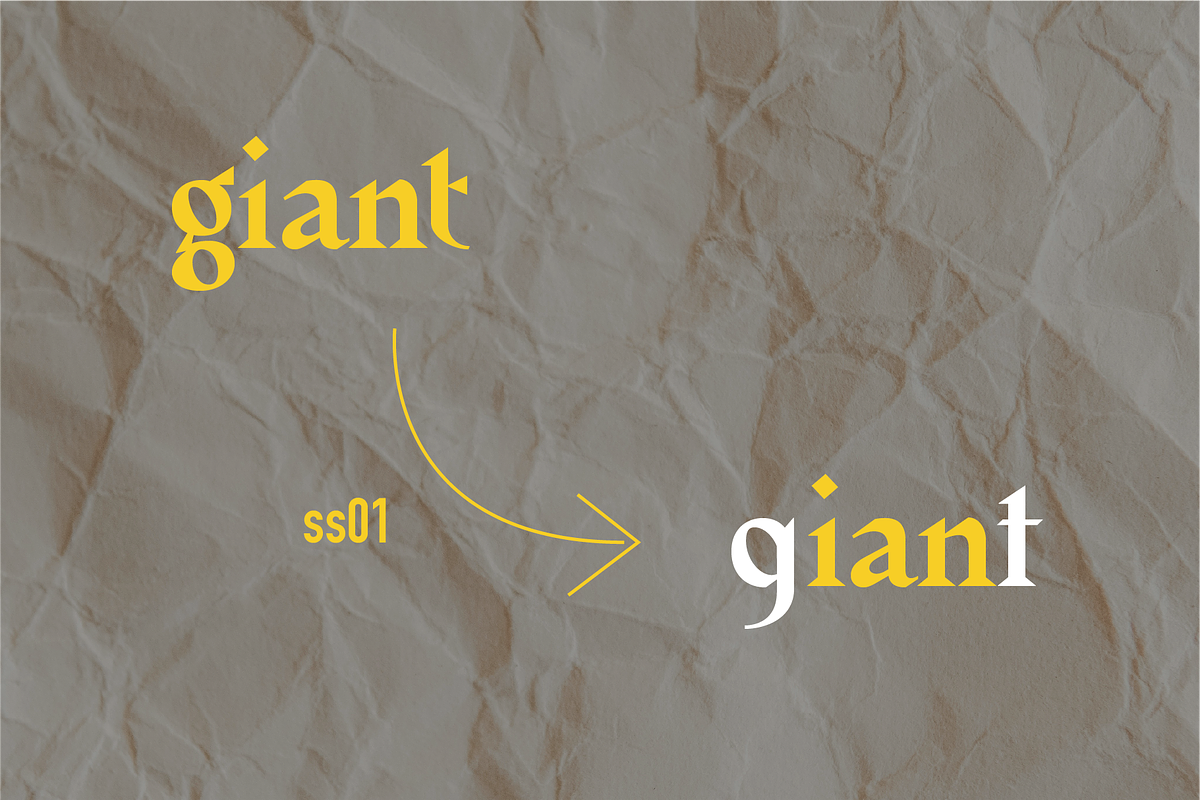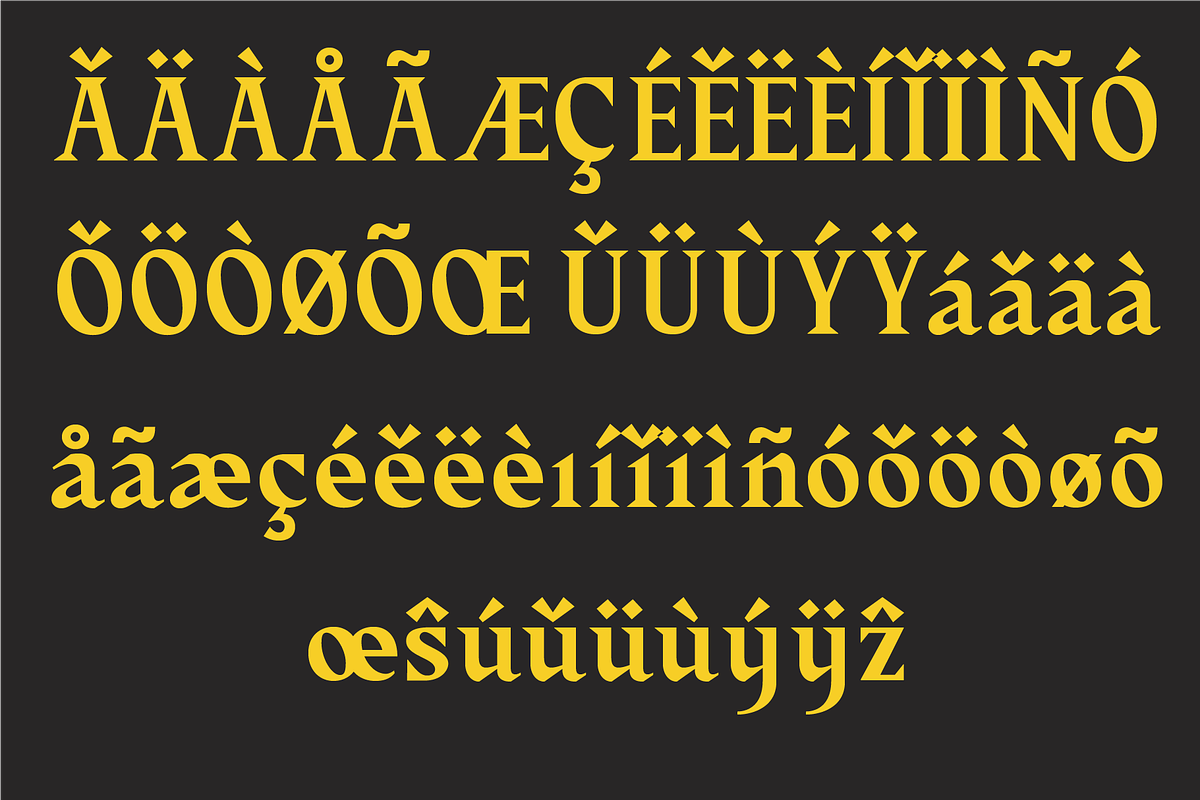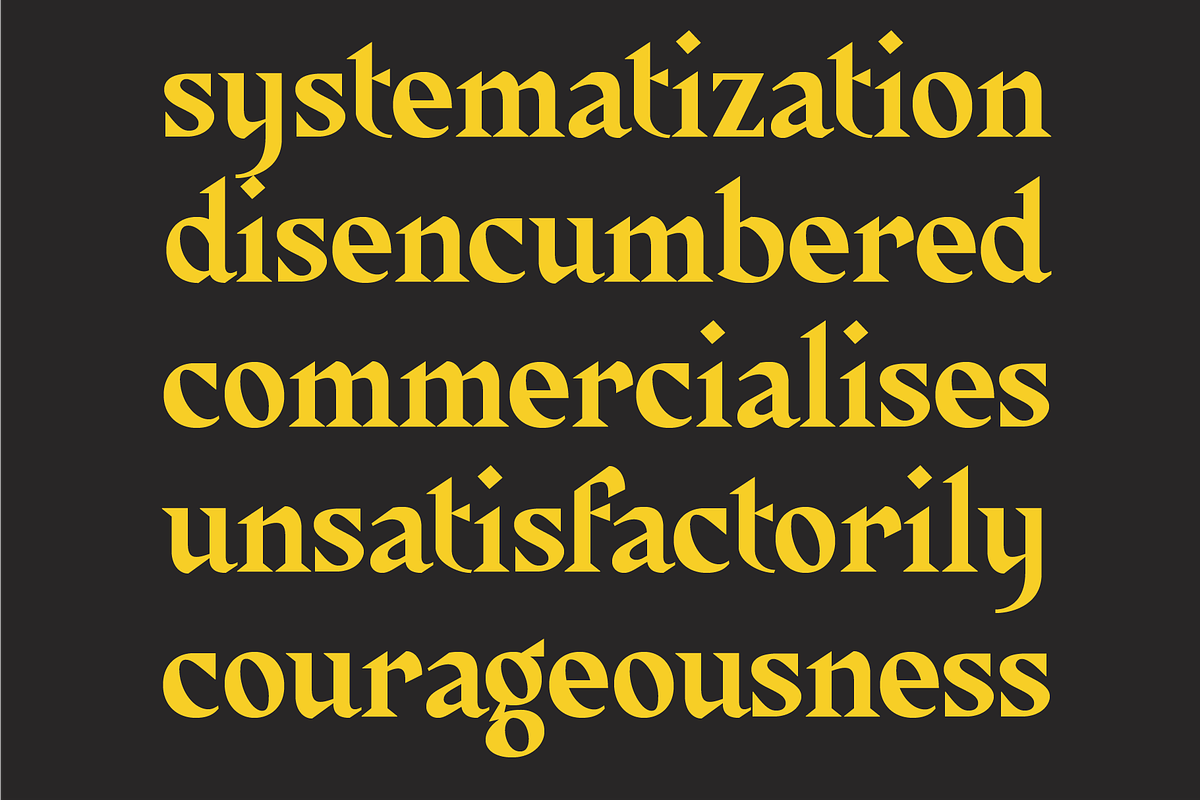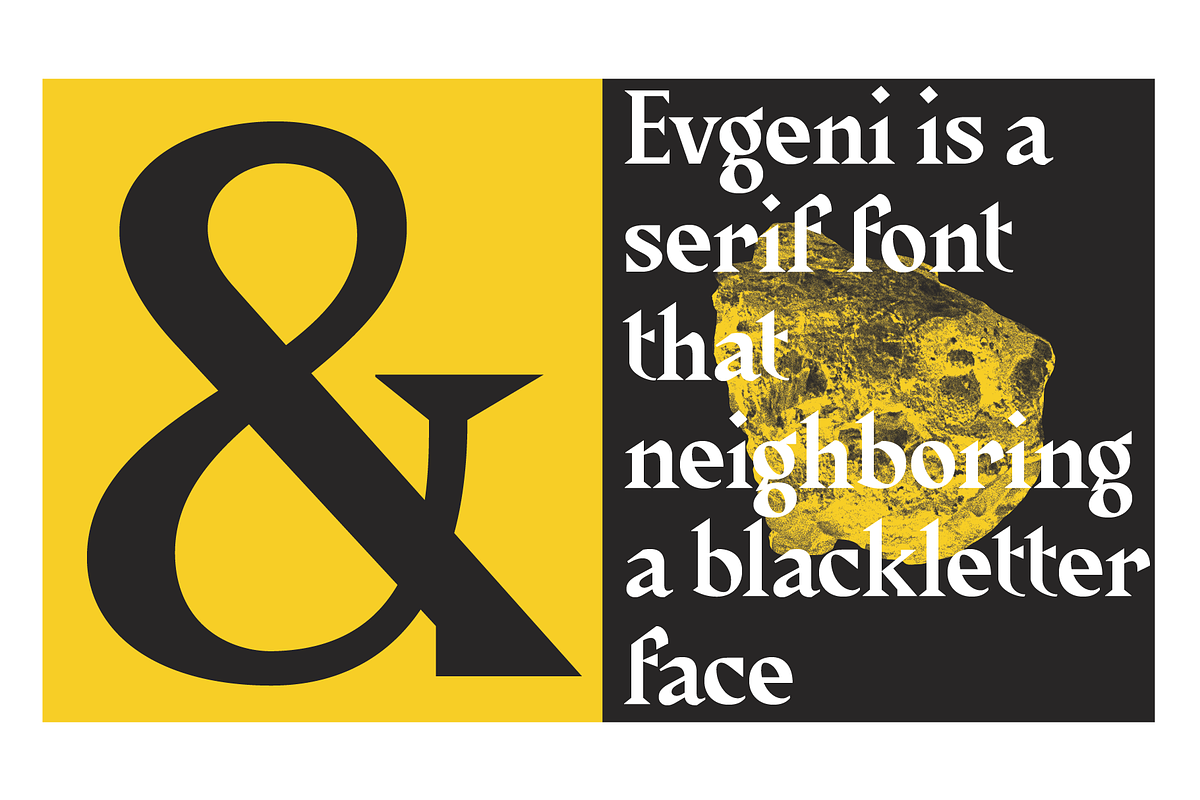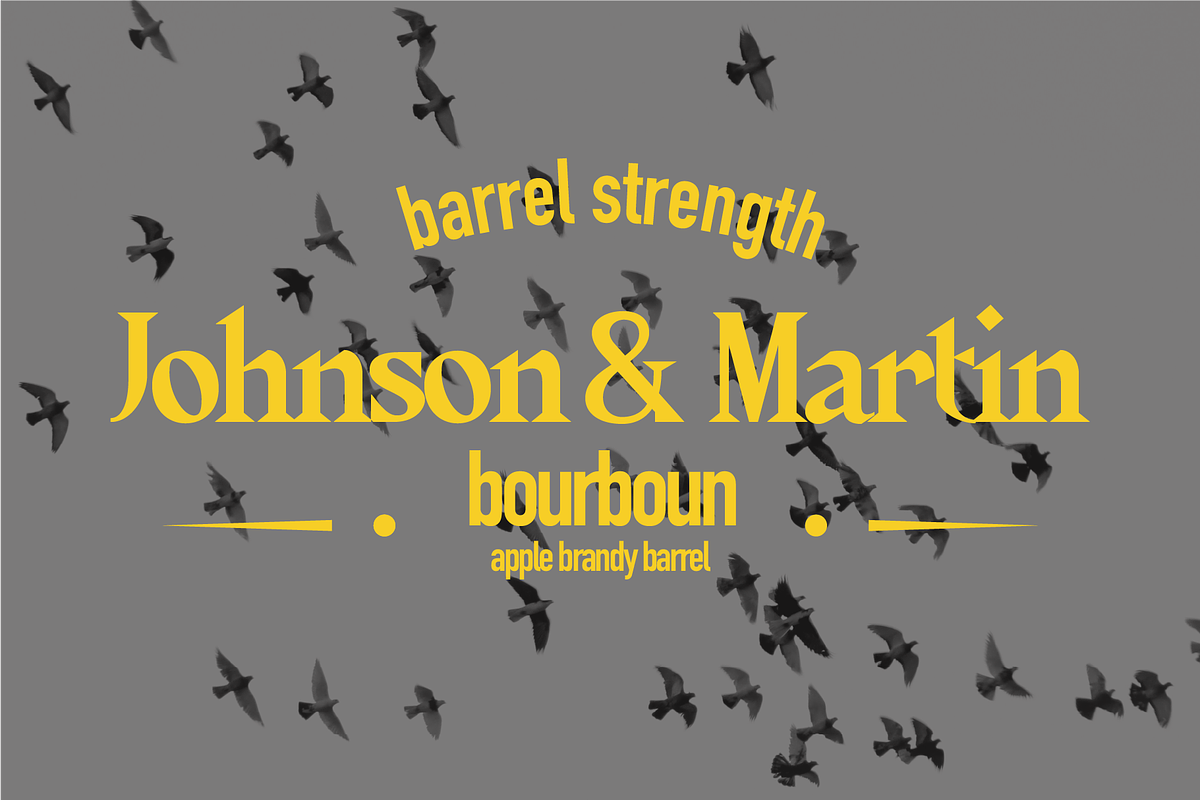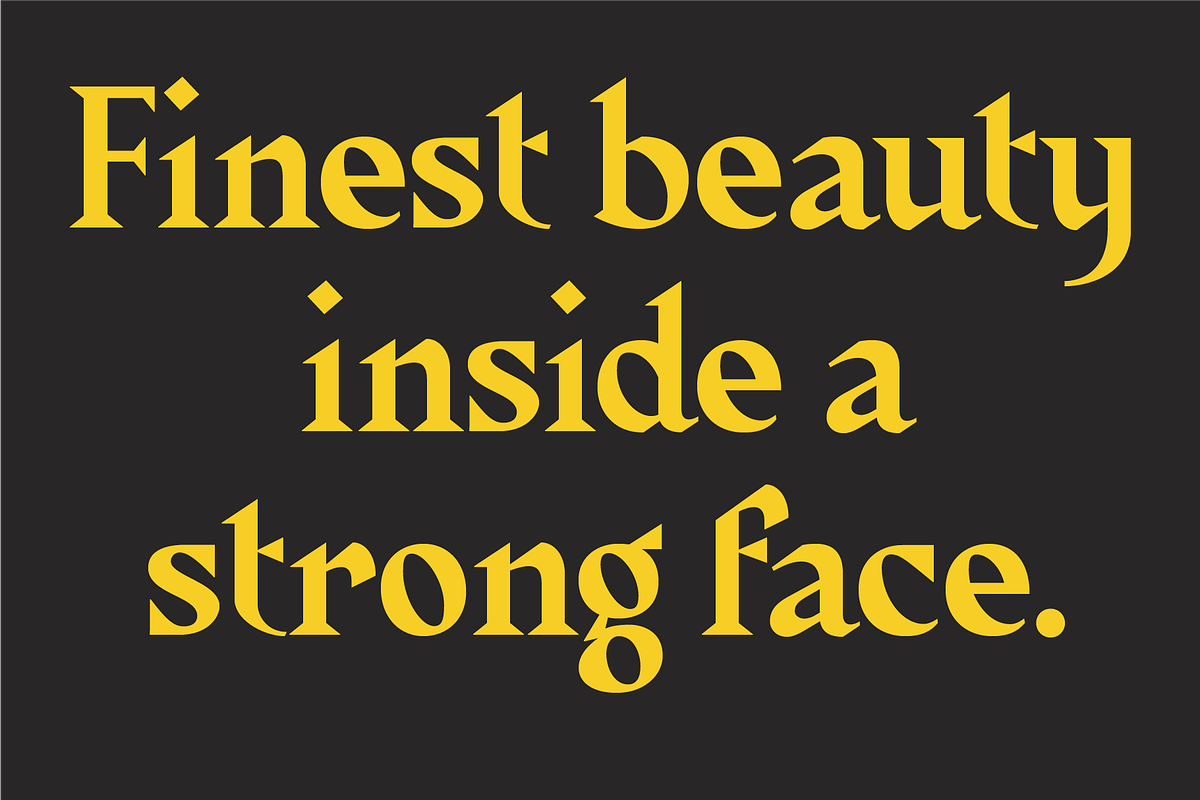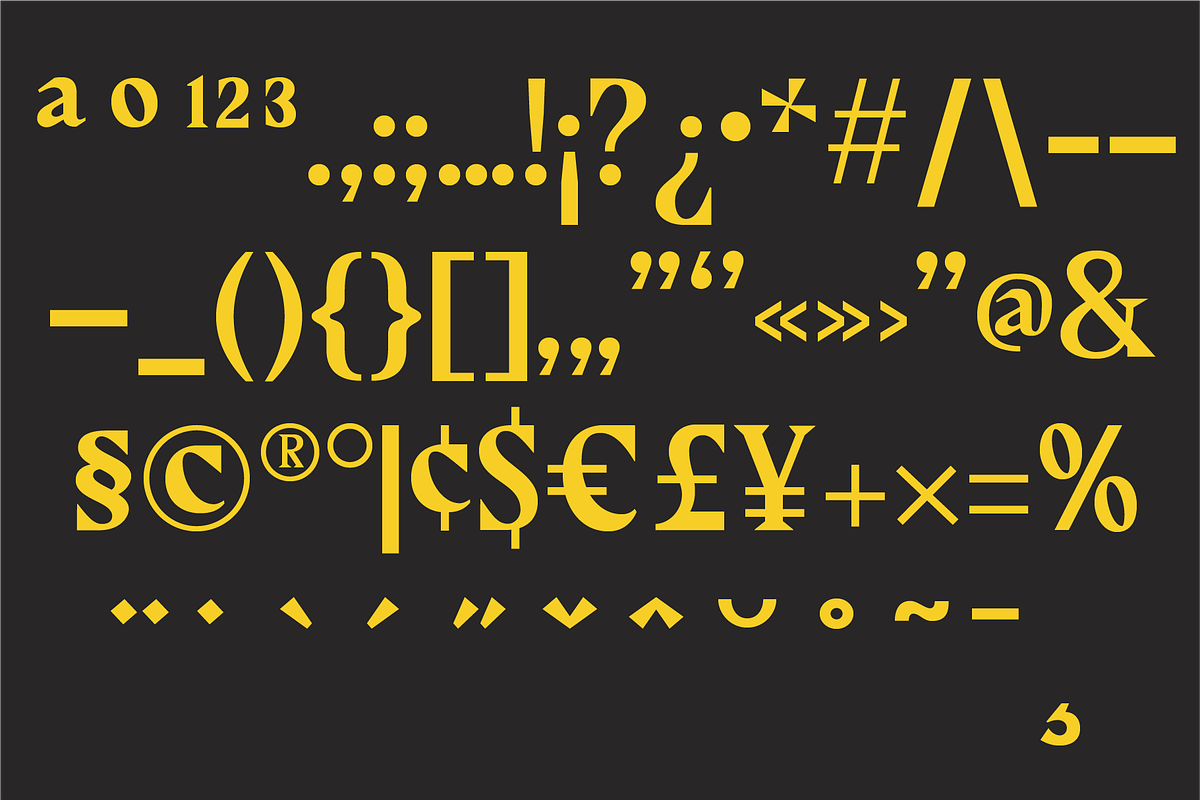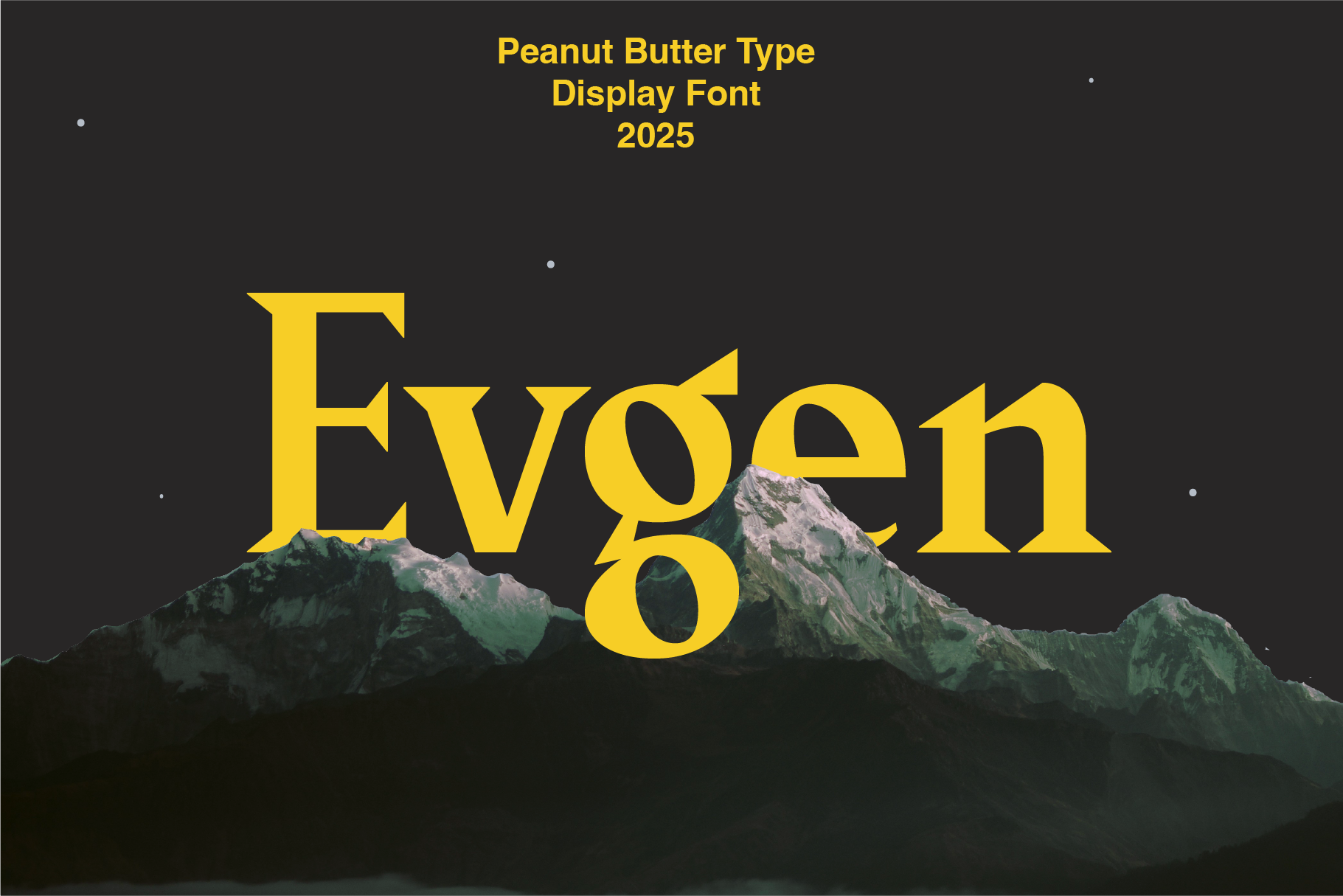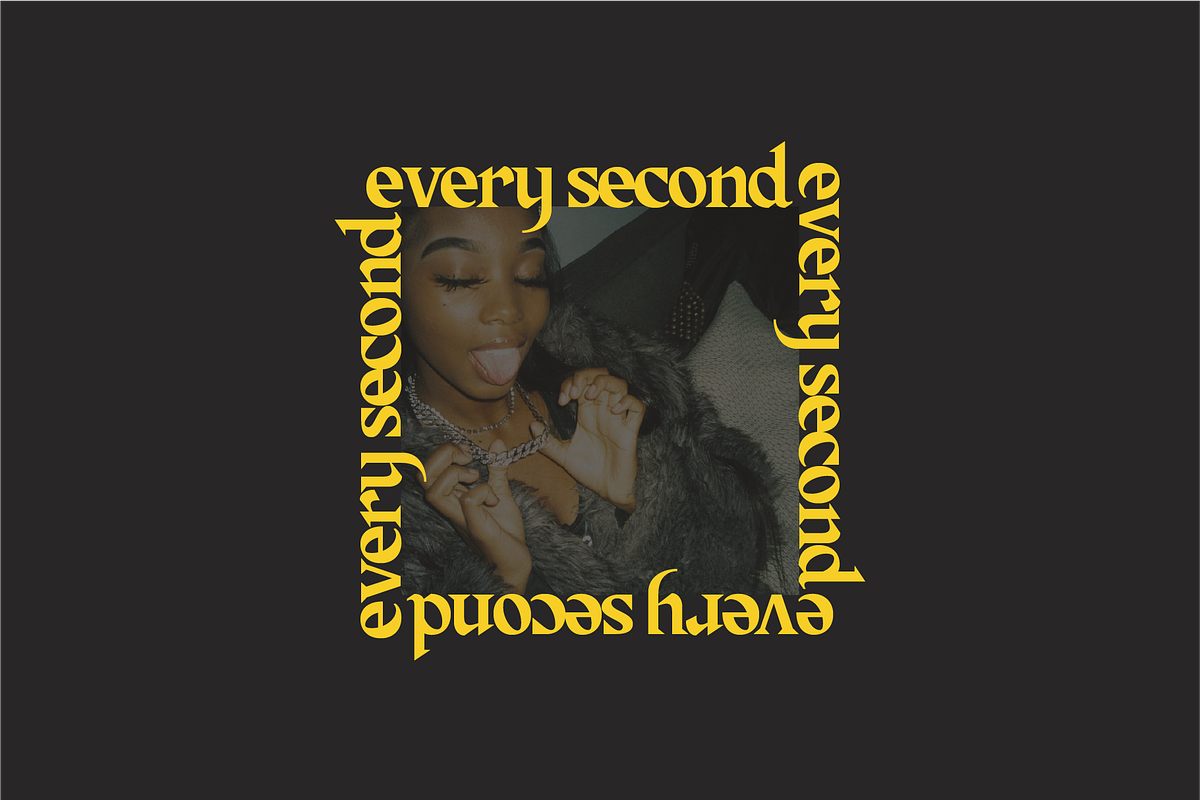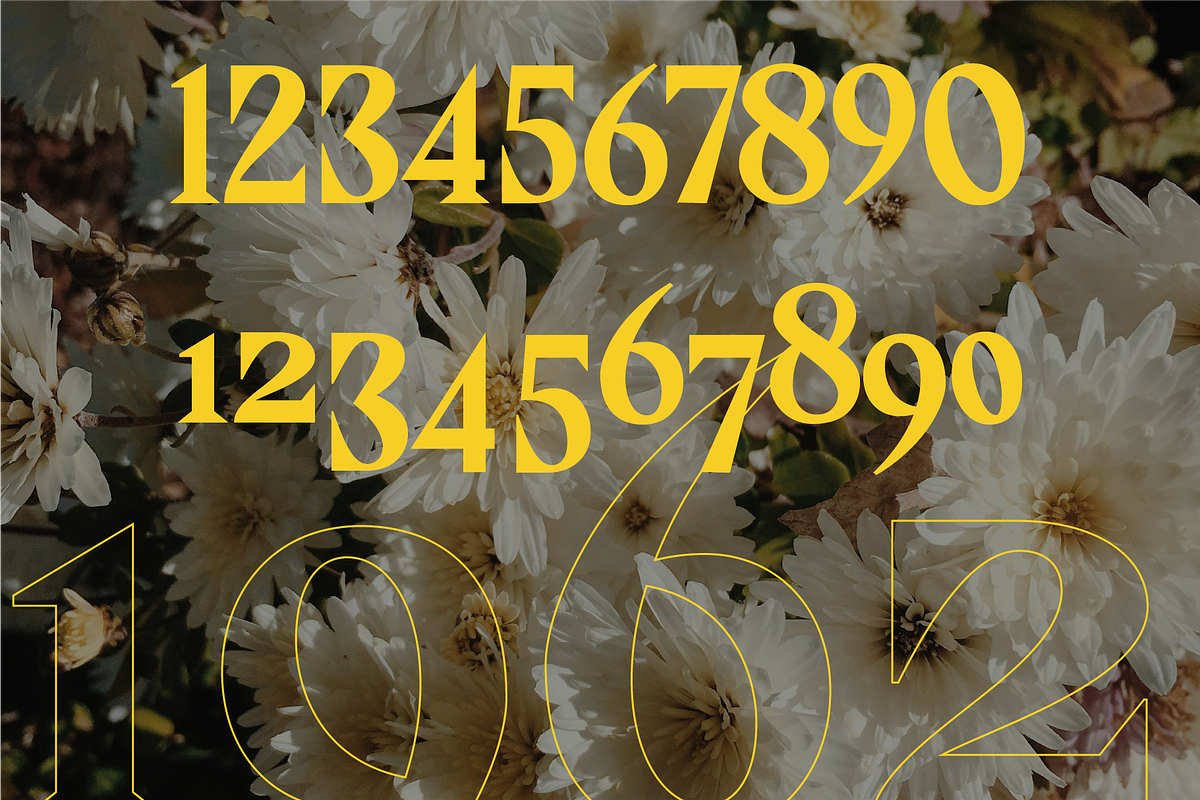
Evgen | Beauty and Strong Serif Font
Evgen is a strong and beautiful serif font that exudes elegance and sophistication. Its well-balanced letterforms and refined details make it an excellent choice for a variety of design projects. Whether you're working on branding, editorial layouts, invitations, or website typography, Even brings a timeless and professional touch. Its versatility allows designers to create visually striking compositions while maintaining readability and style.